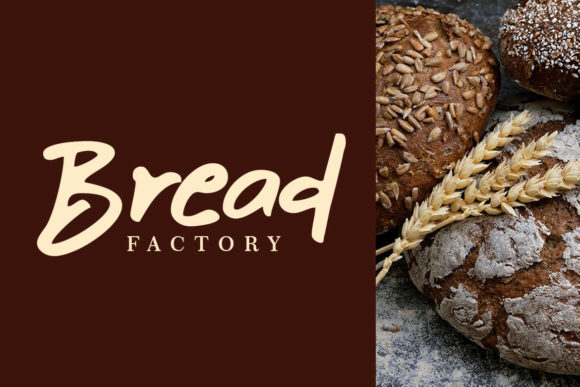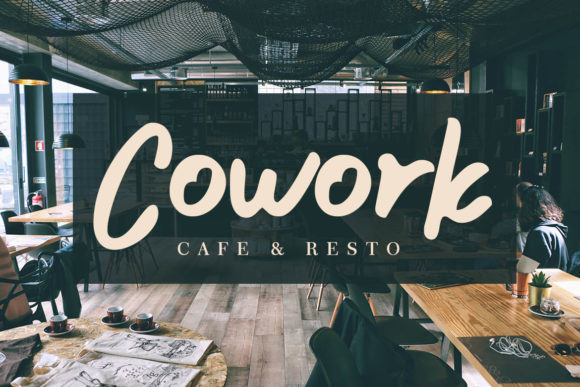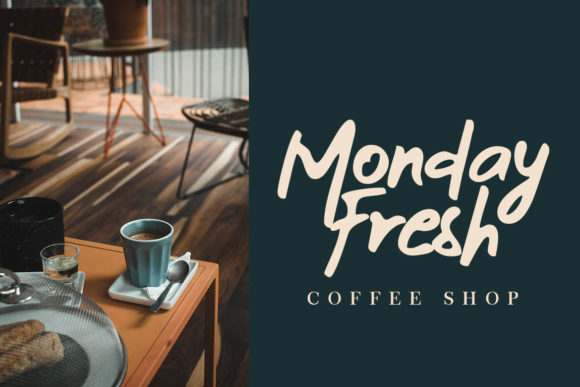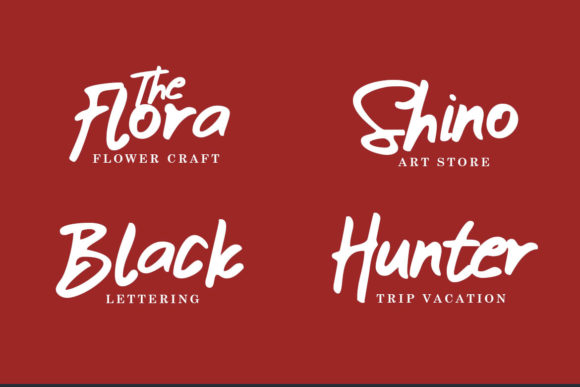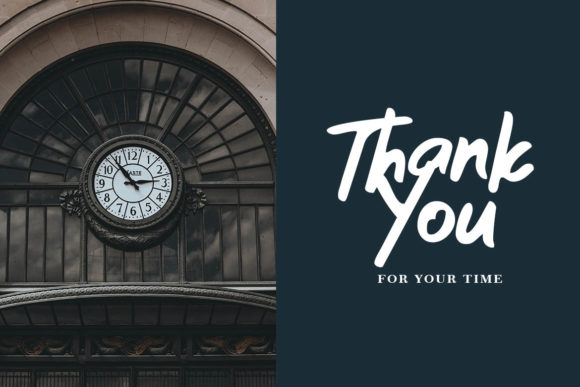
Brown Choco Font: The Perfect Addition to Your Design Arsenal
Are you a designer or crafter looking for a unique logotype font to elevate your designs? Look no further than the Brown Choco Font. This distinctive font is perfect for creating striking logos, quotes, posters, playful lettering, clothing, and every other design that needs a bold and eye-catching typeface.
What Makes Brown Choco Font So Special?
The Brown Choco Font is an exclusive logotype font that boasts a one-of-a-kind design. Its uniqueness lies in its hand-drawn, script-like appearance that exudes a sense of playfulness and sophistication. The font’s distinctive features include:
- Hand-drawn design: Each letter has been carefully crafted to create a unique, hand-drawn look that sets it apart from other fonts.
- Script-like appearance: The font’s script-like features add a touch of elegance and sophistication to any design.
- Playful feel: The Brown Choco Font has a playful, whimsical feel that’s perfect for designs that require a bit of personality.
The Brown Choco Font is incredibly versatile and can be used for a wide range of design projects, including:
- Logos: Create a memorable and striking logo that sets your brand apart from the competition.
- Quotes: Add a touch of elegance and sophistication to your quotes with the Brown Choco Font.
- Posters: Create eye-catching posters that grab attention with the font’s bold and playful design.
- Playful lettering: Use the Brown Choco Font to create playful lettering that adds a touch of personality to your designs.
- Clothing: Design striking clothing with the Brown Choco Font that’s sure to turn heads.
Why Choose Brown Choco Font?
There are many fonts available, but the Brown Choco Font stands out from the rest. Here are just a few reasons why:
- Unique design: The Brown Choco Font has a unique design that’s sure to make your designs stand out.
- High-quality: The font is of exceptionally high quality, ensuring that it looks great in any design.
Tips for Using Brown Choco Font
To get the most out of the Brown Choco Font, here are a few tips:
- Use it sparingly: Because of its bold and playful design, it’s best to use the Brown Choco Font sparingly to avoid overwhelming the design.
- Pair it with other fonts: The Brown Choco Font pairs well with other fonts, so don’t be afraid to experiment with different combinations.
- Experiment with colors: The font looks great in a variety of colors, so don’t be afraid to try out different color schemes.
| Font Name | Brown Choco Font |
| Author | Lettersiro Co. |
The Brown Choco Font is a unique and versatile logotype font that’s perfect for designers and crafters looking to add a touch of personality to their designs. With its hand-drawn design, script-like appearance, and playful feel, it’s sure to make your designs stand out. Whether you’re creating logos, quotes, posters, or playful lettering, the Brown Choco Font is the perfect addition to your design arsenal.